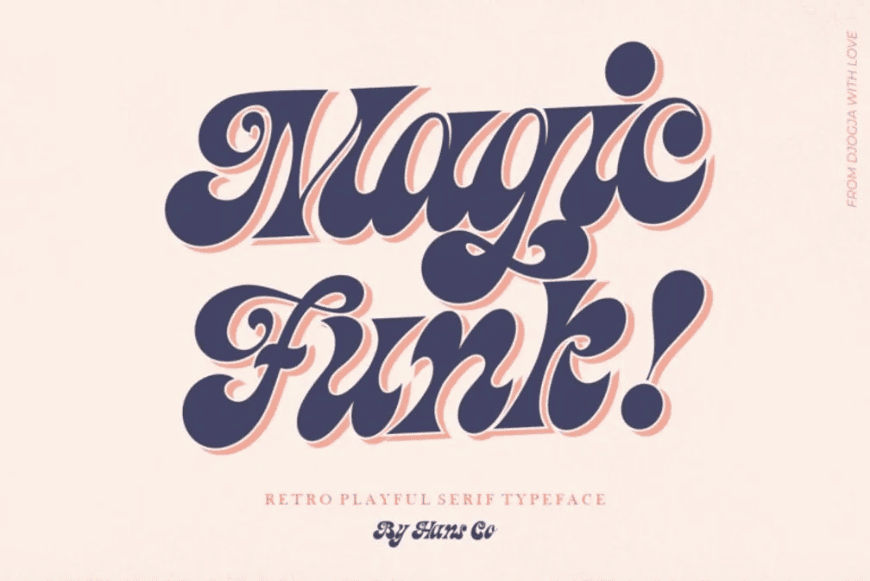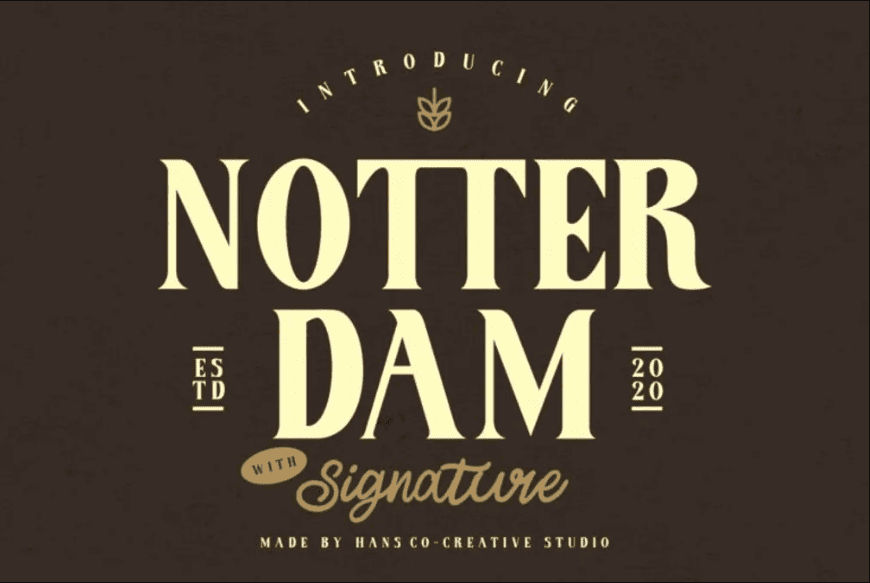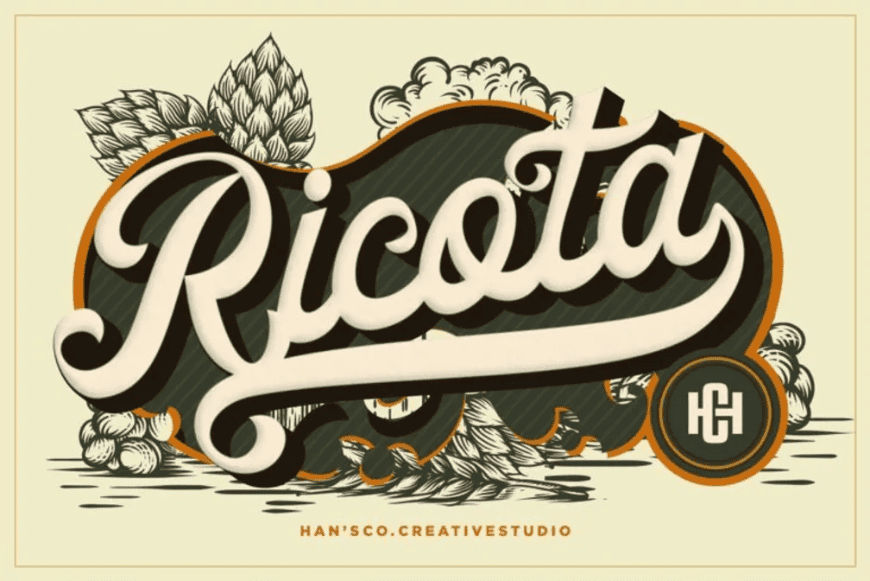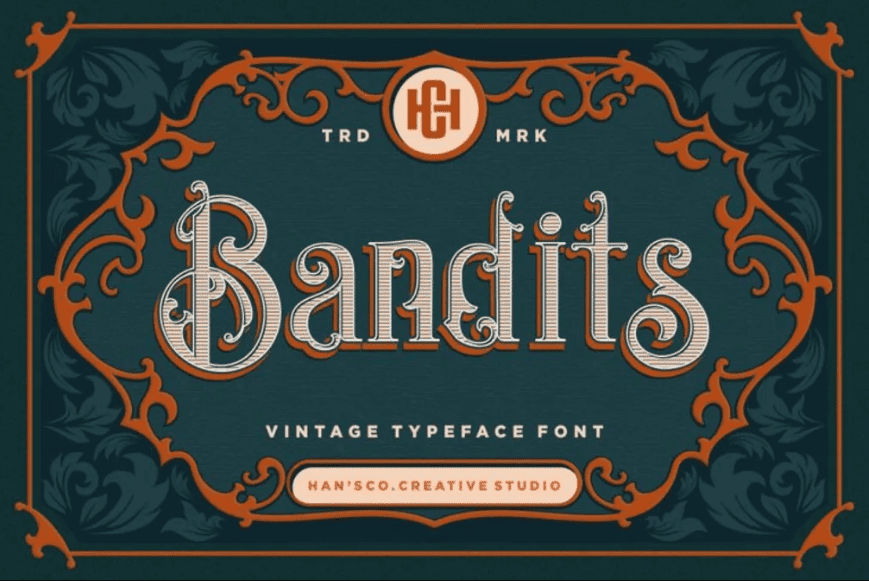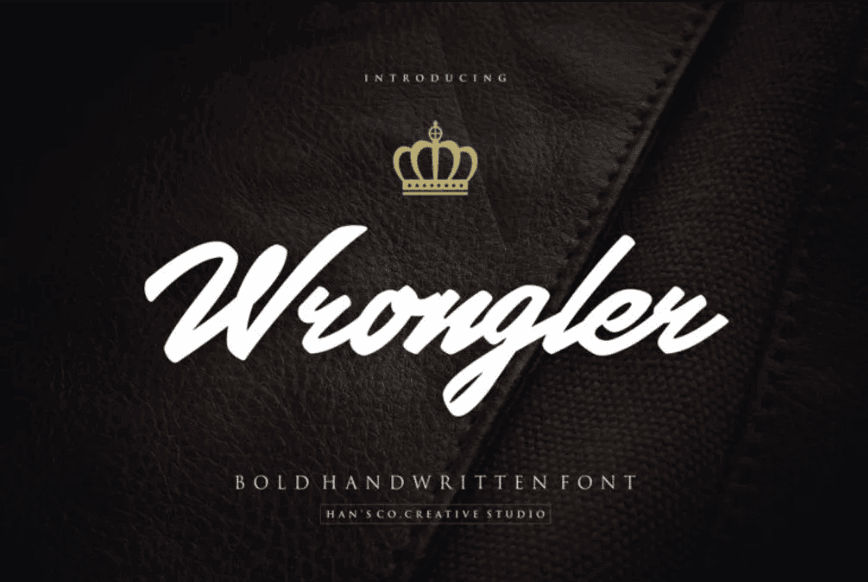
75+ Iconic 90s Font Picks to Revive Classic Retro Aesthetics
Ready to take a trip to nostalgic letterforms? The iconic 90s font style is officially making a massive comeback in modern design, bringing back those vibrant, carefree vibes we all love.
Key Takeaways:
• 90s fonts give ordinary visuals an instant personality boost, turning simple branding into bold designs that feel louder, more playful, and impossible to ignore.
• With styles ranging from funky and chunky to grungy, designers have endless ways to create retro visuals that grab attention fast.
• The right retro font does more than revive throwback vibes; it helps products, campaigns, and brand identities leave a more memorable impression.
Embracing the charm of the 90s Font
From playful bubble letters to edgy grunge textures, these styles offer endless creative possibilities. Let’s dive into the best typefaces to give your next project that authentic, nostalgic glow-up.
1. Magic Funk
Magic Funk is a retro casual font with a bright personality. This font is naturally slanted with tasteful accents, allowing for more movement in your project visuals.
2. Notter Dam
A masculine and rugged font with two types of styles. Notter Dam is an all-caps font, and you can switch it to signature style. Even this logo font knows harmony.
3. Ricota
Ricota is a masterful typography with beautiful lines, proportions, and ornaments. With thick, script style, this font excels in standing out among all other retro fonts.
4. Little Baby
One thing that stood out when looking at Little Baby is familiarity. This 90s childhood font features irregular letterforms, capturing the unique and magical childish handwriting.
5. Blue Spirits
Blue Spirits is a sophisticated Victorian-style display serif font. This look is inspired by vintage, 19th-century apothecary labeling. Now, this style is popular in barber shops, cafes, or tattoos.
6. Bandits
Bandits is a Western-style 90s font that captures the rugged elegance of high-stakes frontier life. Its primary charm lies in the delicate horizontal hatching that fills the letterforms.
7. Wrongler
Wrongler is designed for rugged, professional use. Its clean lines and calligraphy style make it perfect for your hero section.
8. Mosherif
Mosherif excels in playing with letter heights. It’s an all-caps font with options to make each letter tall, regular, or short, allowing you to make a unique logotype with vintage vibes.
9. Letter Magic
Letter Magic is a festive 90s style font with wild letterforms and ornament options. With its decorative elements, this font is perfect for a more casual product or event.
10. Retro Groovy
Retro Groovy is a vibrant 90s-inspired bubble display face that radiates a sense of playful nostalgia and “flower power” energy. Its lack of sharp edges makes it ideal for expressive and fun use.
11. Happy Monday
As the name suggests, Happy Monday brings out happy, lighthearted feelings. This fun, bold retro font wasily radiates an undeniable sense of joy and approachability.
12. Bastro
Bastro takes the vintage serif look into the modern standard. This font has fun ornaments in each letter, and that’s before you switch to the alternates and ligatures.
13. Merry Jolly
Merry Jolly is a Christmas-themed typeface with a joyful look and style. You should cement this decorative all-caps font as your go-to font for every year.
14. Pastel Orange
Among our 90s-inspired fonts, Pastel Orange adds some modern elegance and sophisticated design to its letters. Pastel Orange outshines the usual serif font with glamour.
15. Traditian
Defined by its graceful, calligraphic movement, Traditian features striking vertical stems and delicate, sweeping curves that loop artistically around the characters. The thin-to-thick stroke variation provides a majestic quality.
16. Crows
Crows can be your go-to font when doing fantasy or sci-fi novels. Its swirling profile, combined with the warmth of the 90s retro font style, makes a mystical and mysterious aura.
17. Magic Retro
As the name suggests, Magic Retro magically infuses retro and modern styles. Its clean lines, swirling flairs, and calming nuances make this font the perfect option to complete your campaigns.
18. Glupy Retro
Characterized by its thick, liquid-like forms, Glupy Retro features a heavy bottom weight that gives each letter a grounded yet bouncy appearance. A perfect combo for psychedelic concepts.